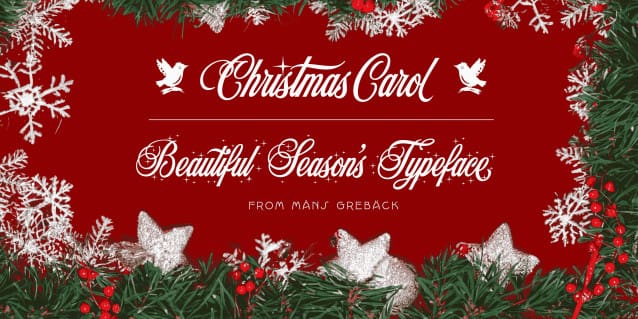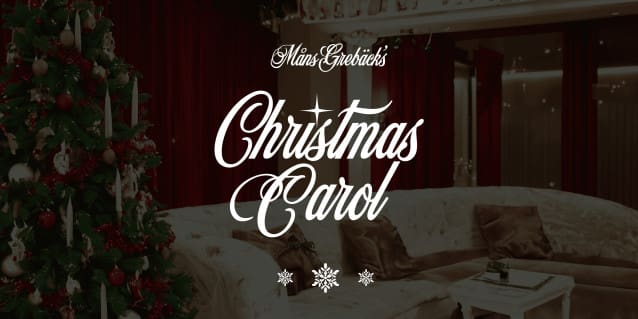
Christmas Carol Symbols Font
Christmas Carol Symbols Font is a classic typeface that embraces the holiday spirit. Infused with a touch of nostalgia, Christmas Carol wraps your words in the comfort of yuletide cheer.